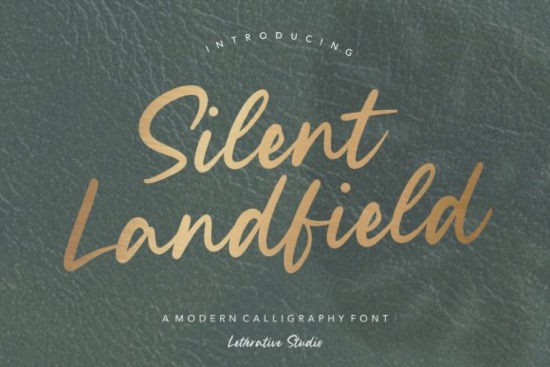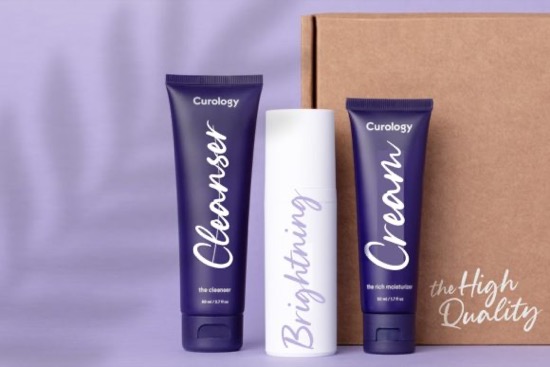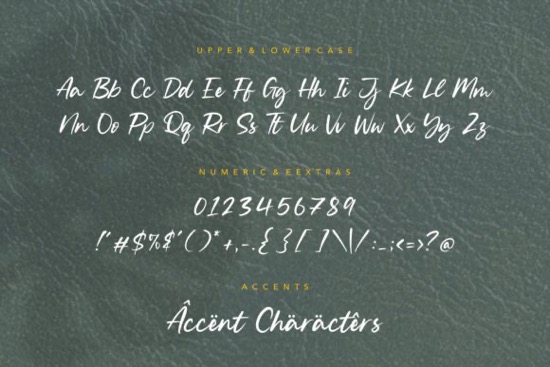
Silent Landfield is a unique, flowing handwritten font that captures the modern of cool sophistication. It has a casual style and it will enhance each of your favorite design ideas.
Silent Landfield Handwritten Font
Silent Landfield Font